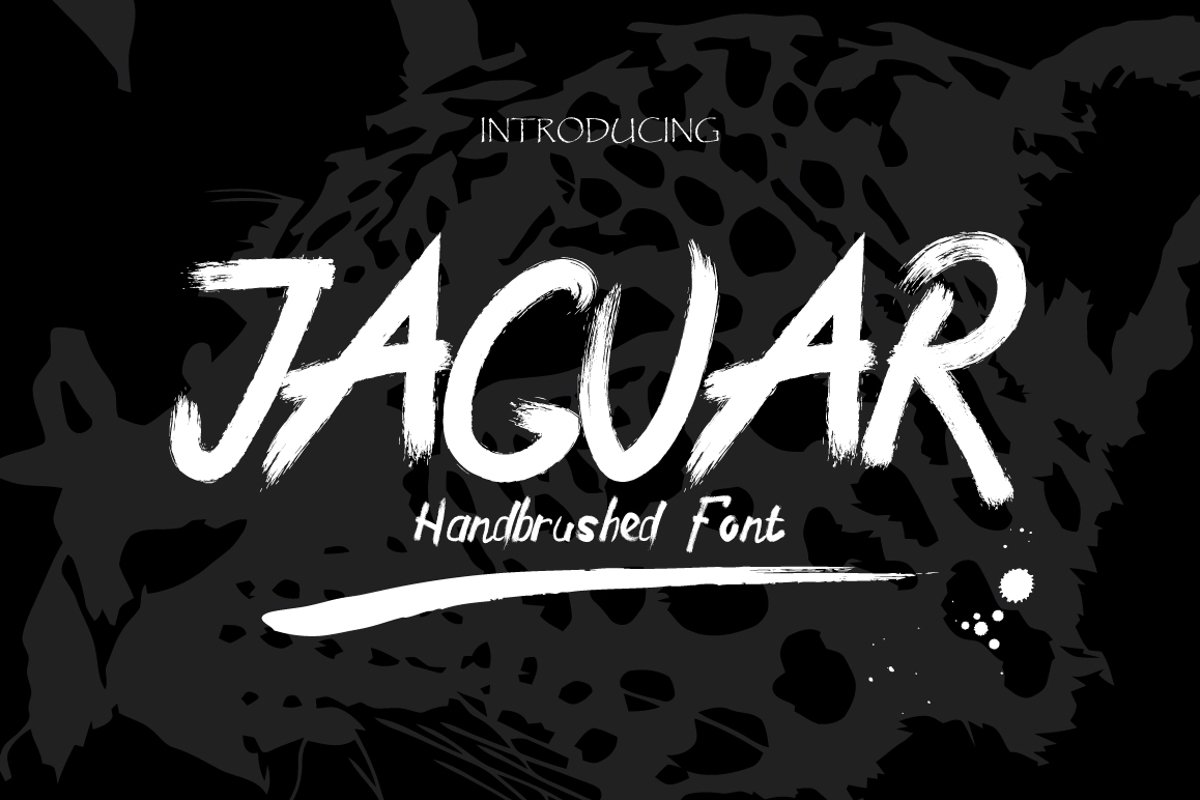
Jaguar Typeface + Swashes
Introducing Jaguar Hand-brushed Typeface
Can be used for various purposes namely headings, logos, wedding
invitations, t-shirts, letterheads, signages, labels, news, posters,
badges etc.